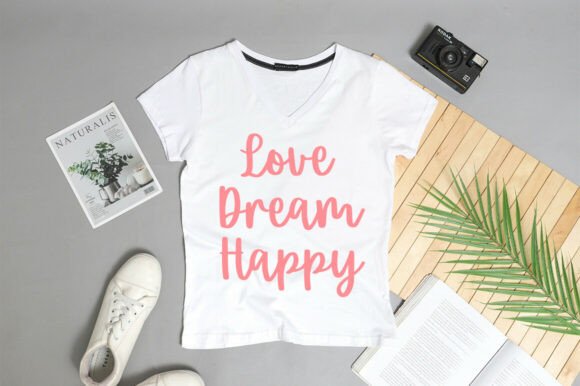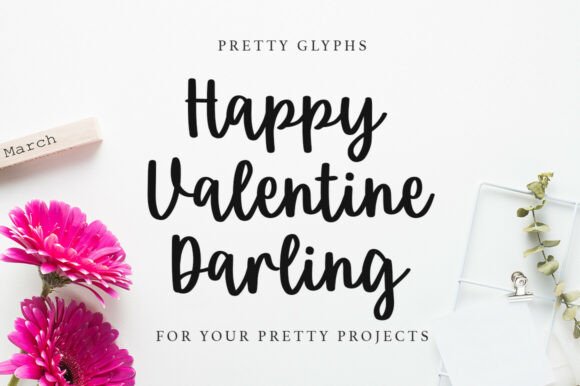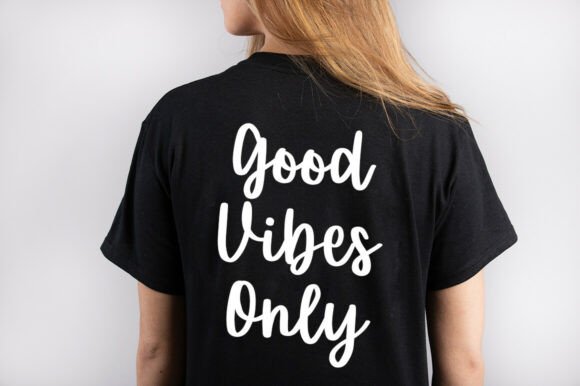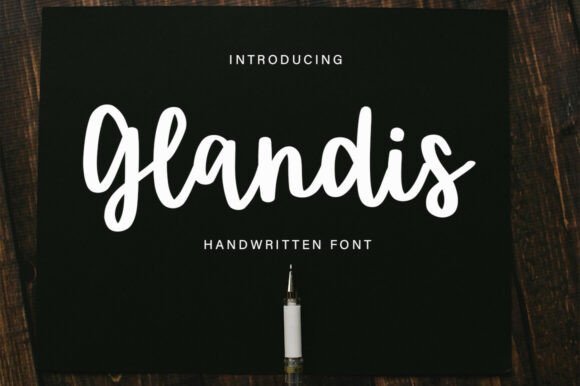
Introduction to Glandis Font
Embodied in a handwritten brush style, this font exudes boldness and expressiveness with a sophisticated flair.
Mirroring the authenticity and dynamism of actual brush strokes, each typographic element radiates a beautifully crafted texture and natural movement that instantly augments every design An ideal choice for creatives seeking to cultivate a robust personality and authentic aura, this font strikes a harmonious balance between relaxed freedom and contemporary aesthetics.